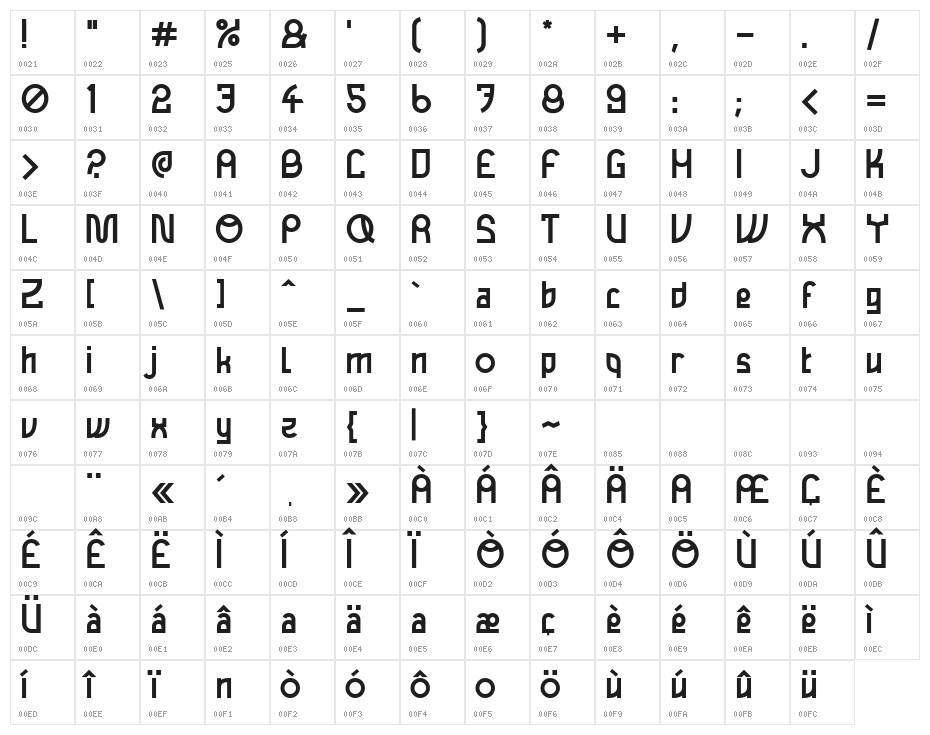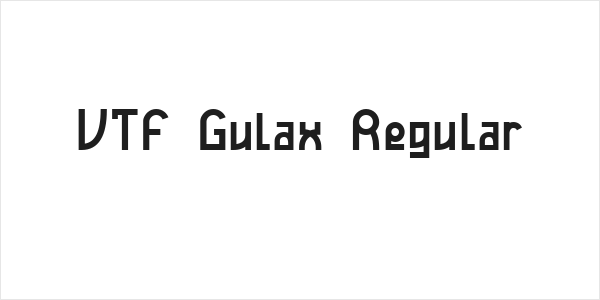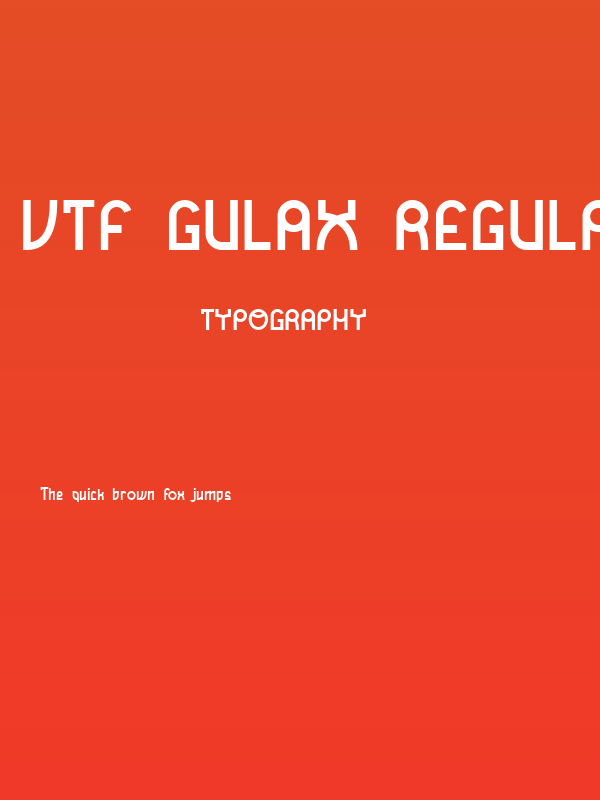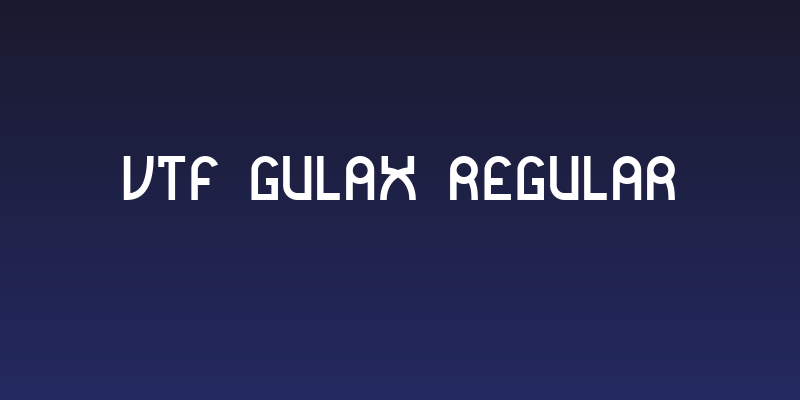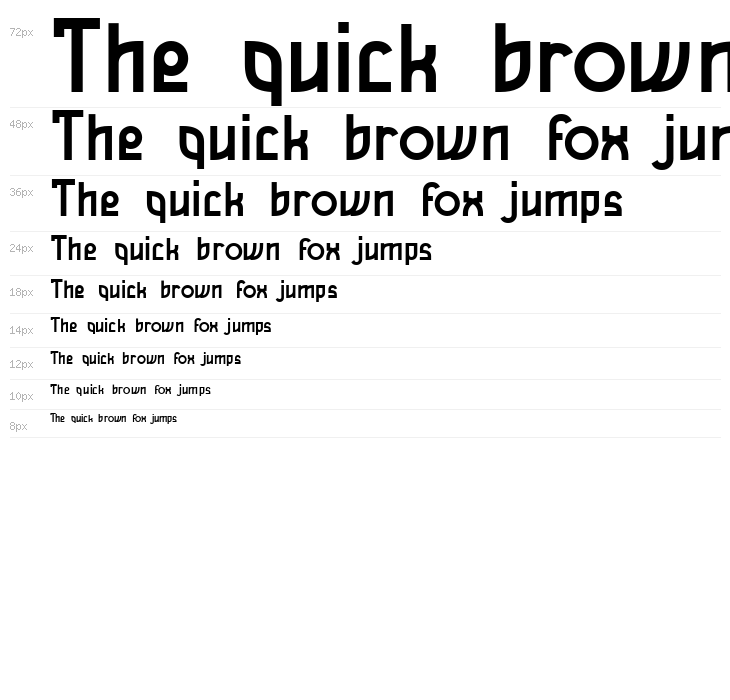
VTF Gulax Regular Font
VTF Gulax Regular Description
This typeface features a bold, geometric design with a modern flair. The characters are constructed with clean, straight lines and sharp angles, giving it a futuristic and tech-inspired appearance. The uppercase and lowercase letters maintain a consistent height, contributing to a uniform look. The numerals and special characters are designed to match the overall aesthetic, with distinct shapes that ensure readability. The font's unique style makes it stand out, while its clarity ensures it remains legible even at smaller sizes.
| Proposed Projects | Ideal for technology branding, futuristic posters, video game interfaces, and digital media. |